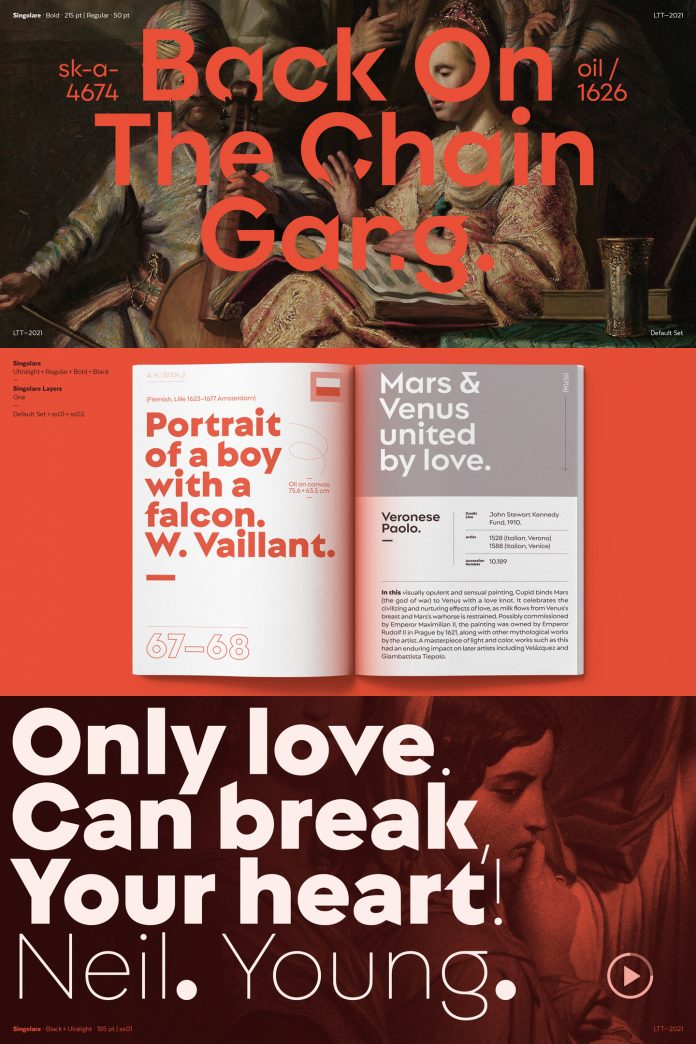
Discover Singolare, a contemporary geometric sans serif font family.
Designed by Sofia Mohr in 2021 for foundry Latinotype, Singolare is a contemporary geometric sans serif font family with angular terminals and a perfect x-height. The variety of weights, styles, and layers makes it a perfect typeface for display usage and short text sections. The Singolare font family is equipped with five weights ranging from Ultralight to Black. Each weight comes with its own stencil version and expressive cuts as well as four decorative versions (three outline versions and one inline version). All of the styles can work alone or in combination with some layering styles in different colors.